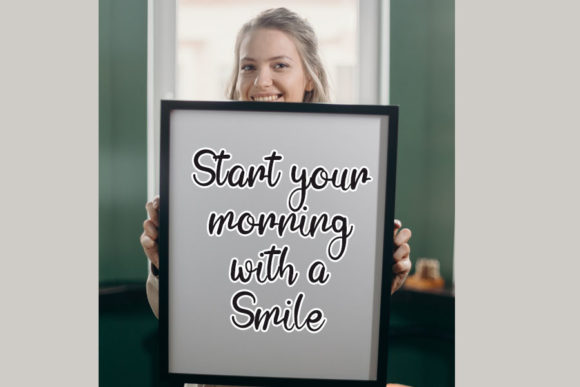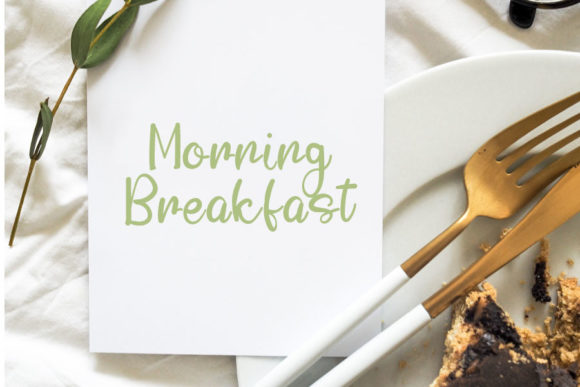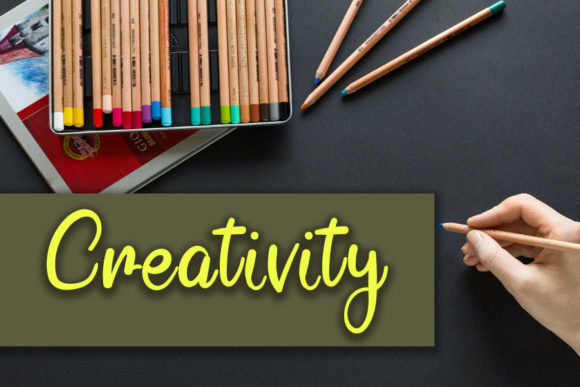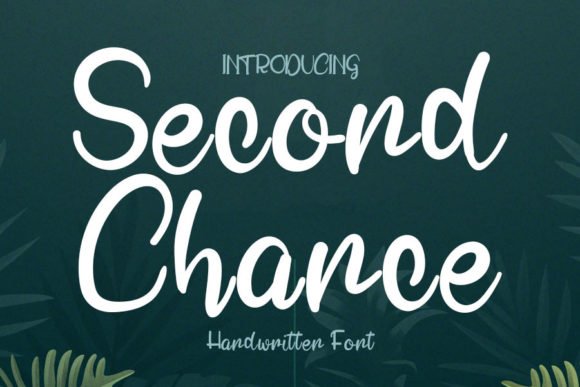
Introduction to Second Chance Font
Second Chance is a cute and friendly handwritten font.
Playful and flowing, this font is the perfect fit for all of your logos, branding, posters, and crafty DIY projects .